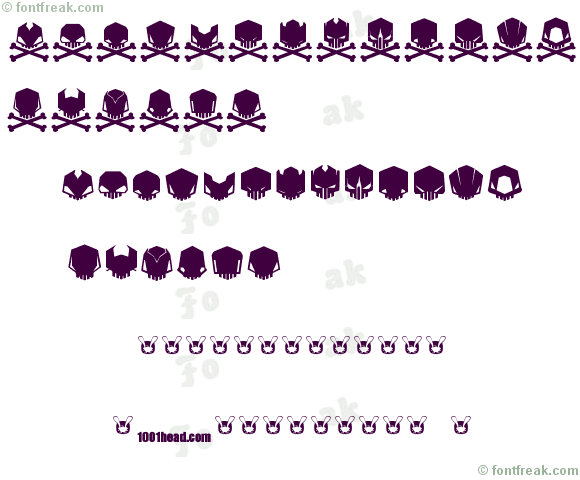
DeadHead
About DeadHead
DeadHead by Maelle.K is a striking display font that embodies a bold, rebellious spirit. This decorative typeface features a unique design characterized by its heavy stroke weight, sharp angles, and eye-catching decorative elements reminiscent of skull motifs. The font exhibits low contrast, providing a solid and impactful appearance that grabs attention. The spacing is thoughtfully arranged, allowing each character to stand out while maintaining a cohesive look throughout the text.
Ideal for a variety of creative projects, the DeadHead font can be particularly effective in applications such as music festival posters, edgy branding for clothing lines, and promotional materials for alternative lifestyle events. Its distinctive style makes it a perfect choice for skateboard graphics, tattoo parlors, and even Halloween-themed merchandise. Small business owners looking to convey a unique identity will find this font especially appealing for their marketing collateral.
The target audience for the DeadHead font includes graphic designers seeking to add a dramatic flair to their projects, content creators looking for a distinctive voice, and business owners wanting to stand out in a crowded marketplace. Its versatility allows it to be utilized across various platforms, from digital content to print media.
What sets the DeadHead font apart is its ability to convey a strong personality while remaining versatile enough for diverse applications. The combination of its bold design and the unique skull elements captures attention and evokes a sense of adventure. For anyone looking to make a statement, the DeadHead font free download is an excellent choice, offering both style and functionality for creative endeavors.